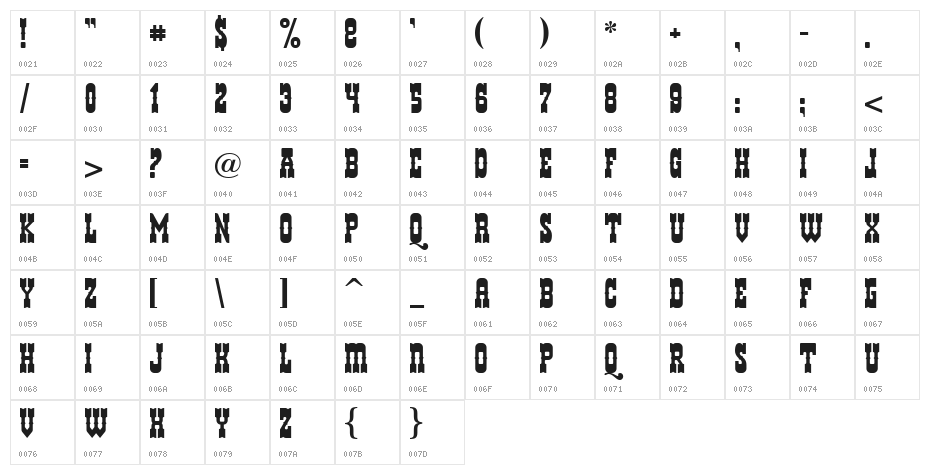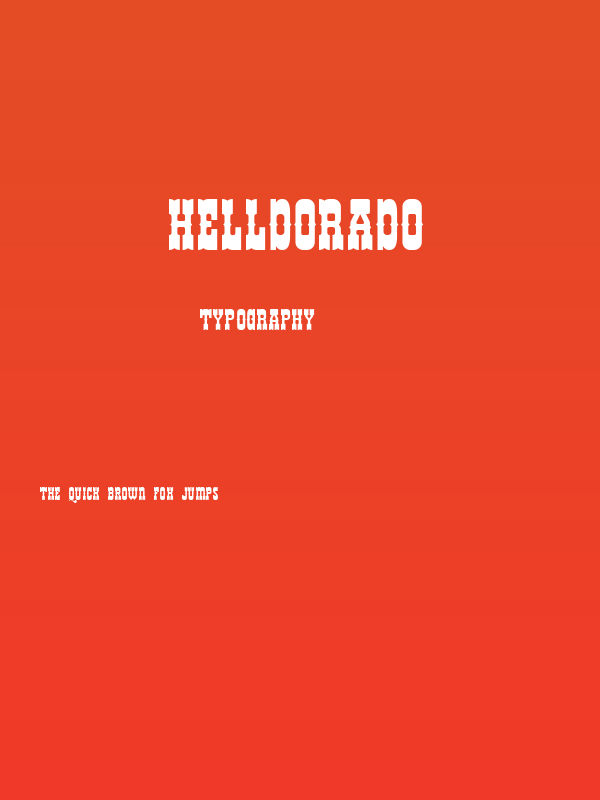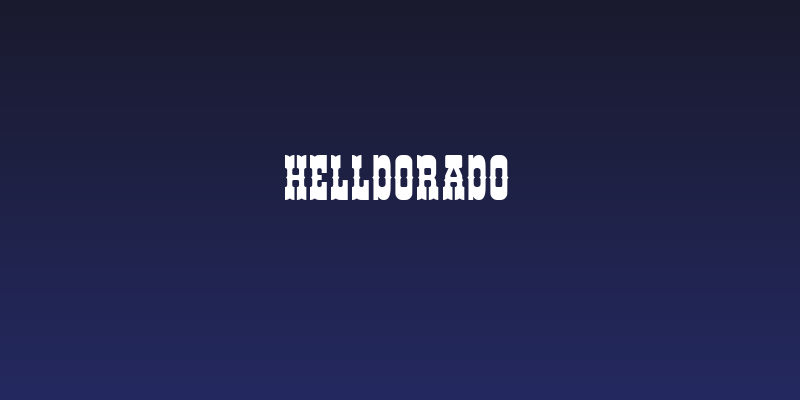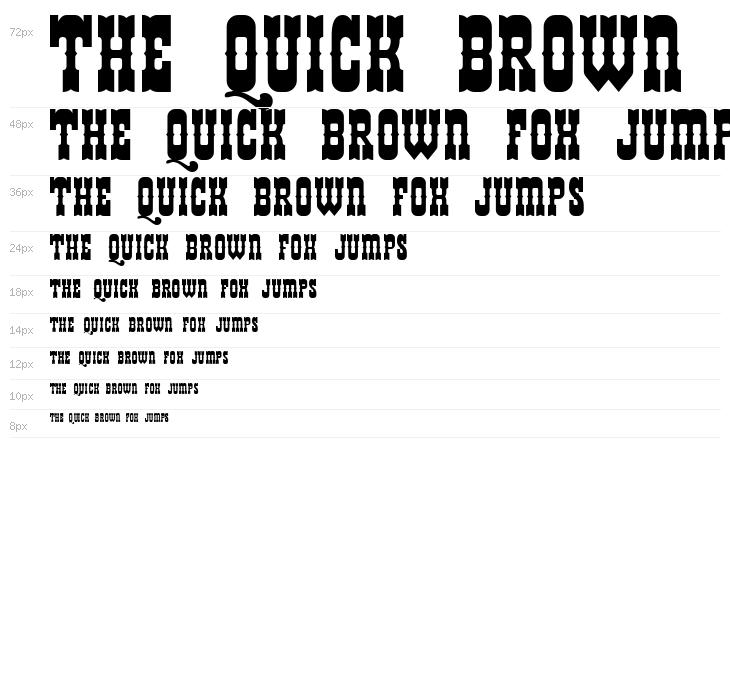
Helldorado Font
Helldorado Description
This font features a bold and striking design with a distinctly Western or vintage feel. The characters are heavily stylized with thick, blocky serifs and unique cut-out shapes that give it a rugged, old-world charm. The uppercase and lowercase letters maintain a consistent weight, providing a cohesive look across all characters. The numbers and special characters follow the same design principles, ensuring uniformity throughout. This font's boldness and decorative elements make it ideal for creating eye-catching headlines or logos that demand attention.
| Overall Style | Vintage |
| Proposed Projects | Ideal for Western-themed posters, vintage branding, logos, and eye-catching headlines. |